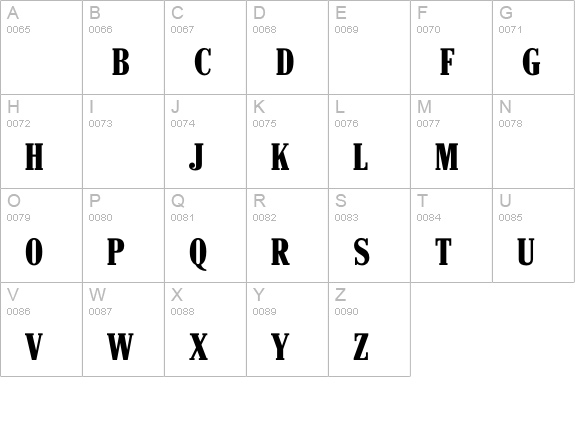
HancockBoldCondensed Font Details
HancockBoldCondensed is a striking and impactful font that adds a touch of boldness to any design project. With its condensed form, it exudes a sense of efficiency and professionalism, making it a perfect choice for headlines, titles, and branding materials. The strong and sturdy letterforms of HancockBoldCondensed are meticulously crafted to command attention and leave a lasting impression. Its condensed nature allows for maximum legibility even in tight spaces, making it ideal for packaging, posters, banners, and other large-scale applications. This versatile font is not only visually appealing but also conveys a sense of modernity and sophistication. Its bold and condensed design makes it stand out in a crowded digital landscape, ensuring that your message gets noticed. But what sets HancockBoldCondensed apart is that it is freely available to download at FontsMarket.com. Yes, you read that right – this high-quality font can be yours without spending a dime. FontsMarket.com offers a wide range of fonts, and HancockBoldCondensed is just one of the gems waiting to be discovered. Whether you're a professional designer or a DIY enthusiast, HancockBoldCondensed is a must-have in your font collection. Its versatility, legibility, and boldness make it a powerful tool for creating impactful designs. So why wait? Head over to FontsMarket.com and download HancockBoldCondensed today, and let your creativity soar.